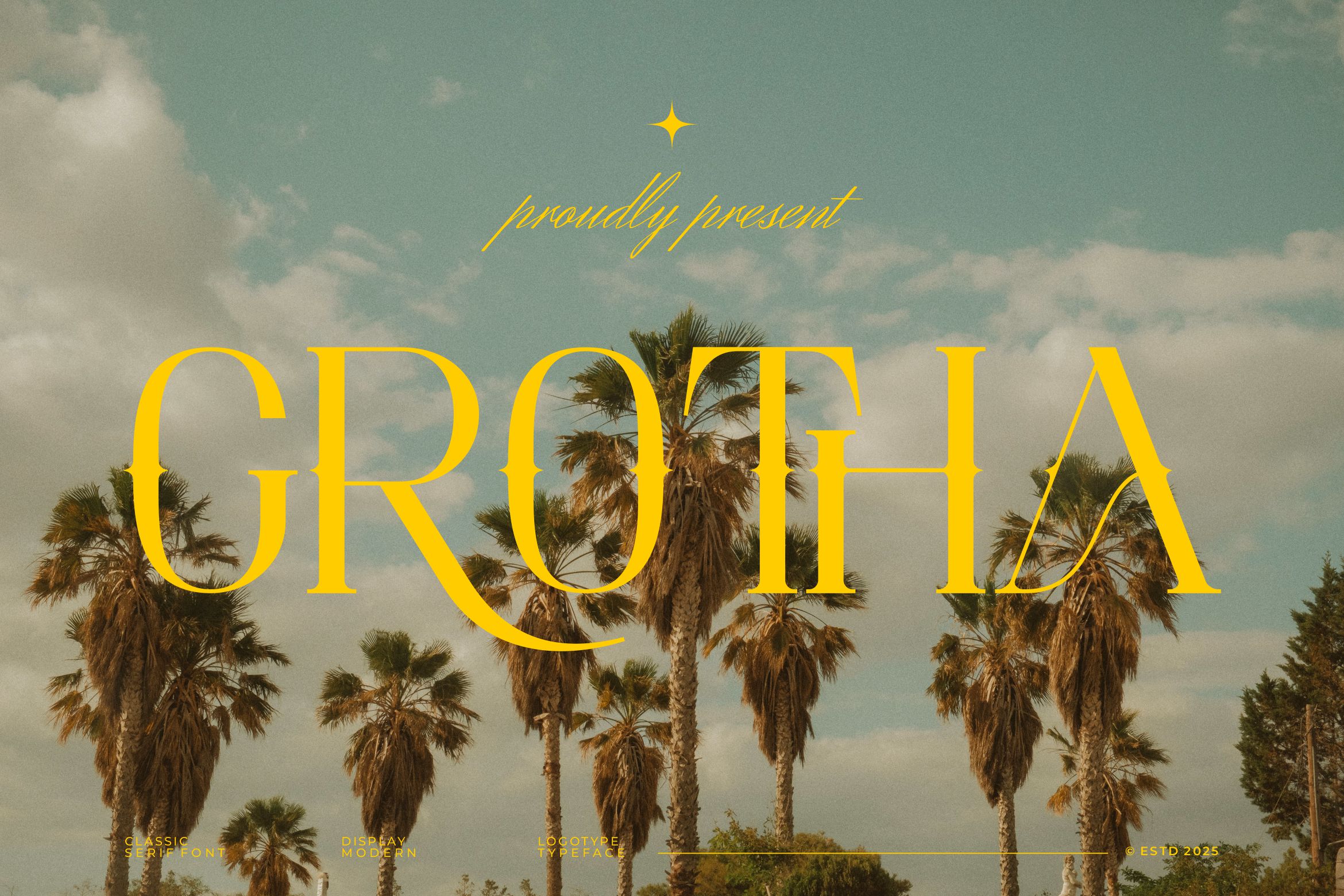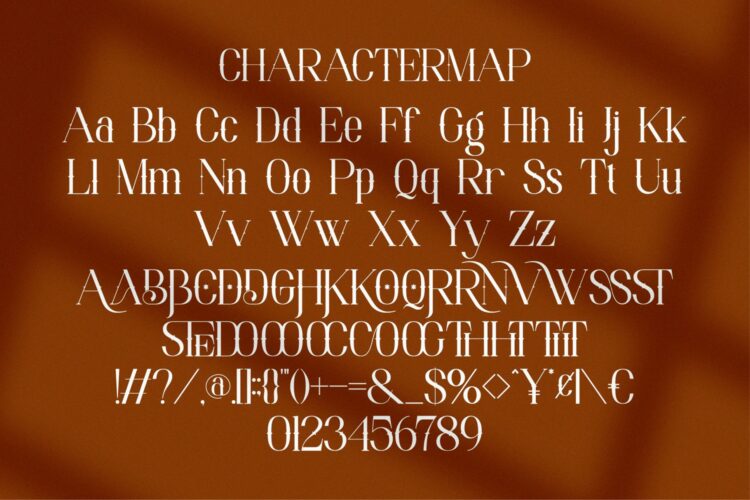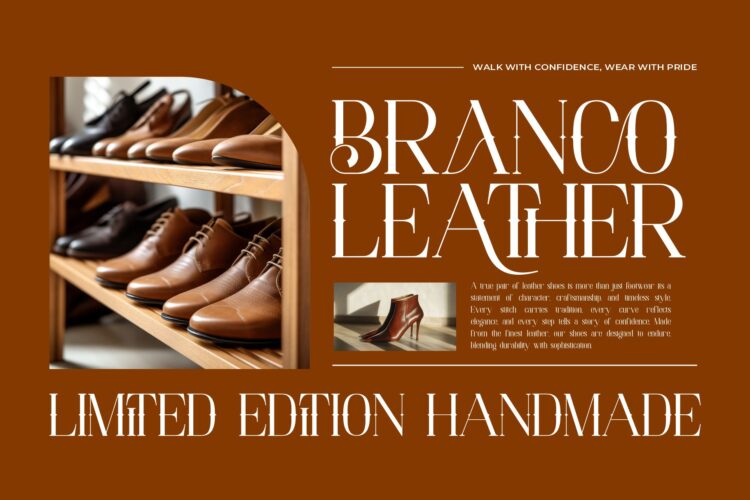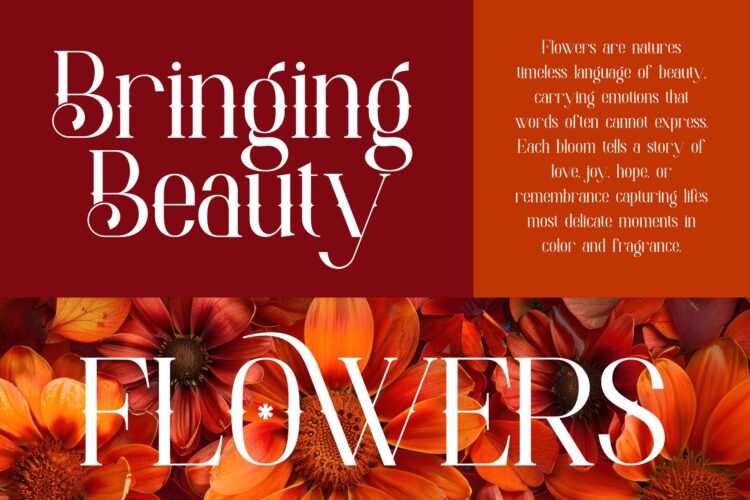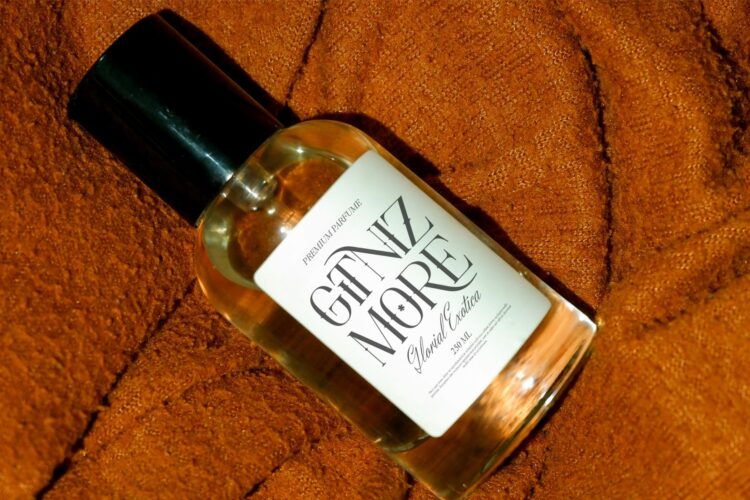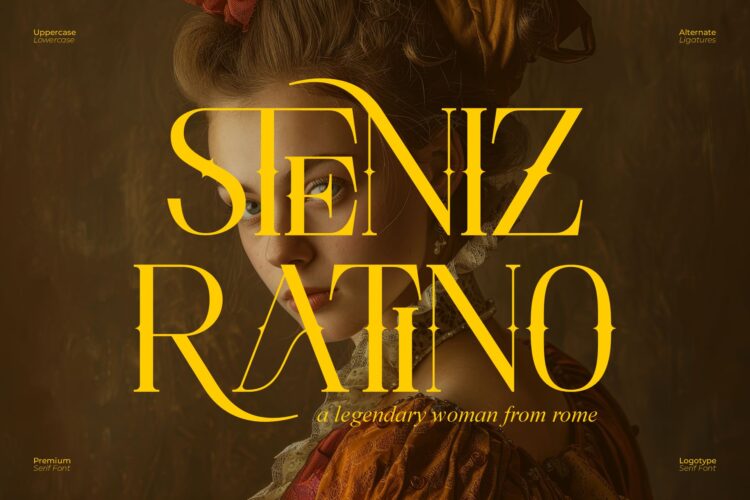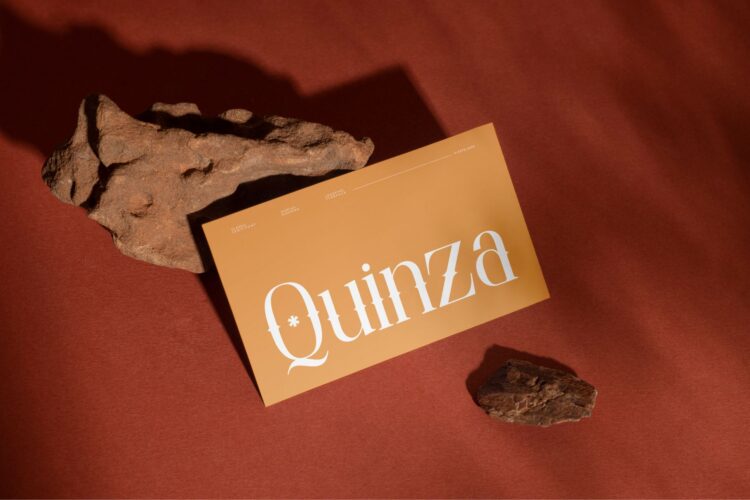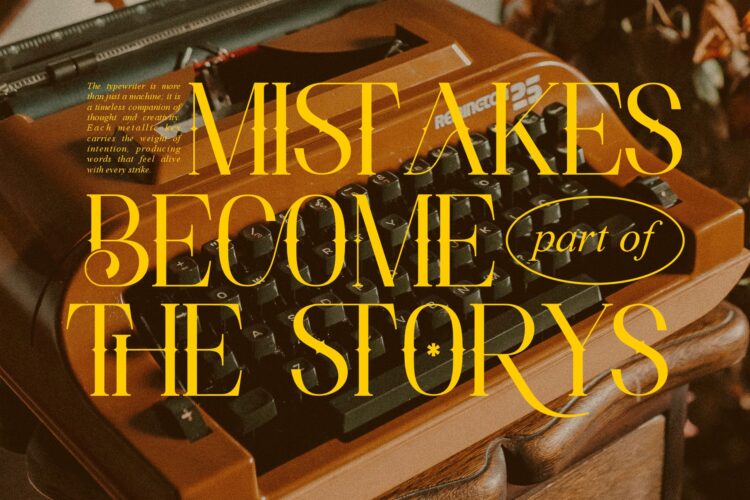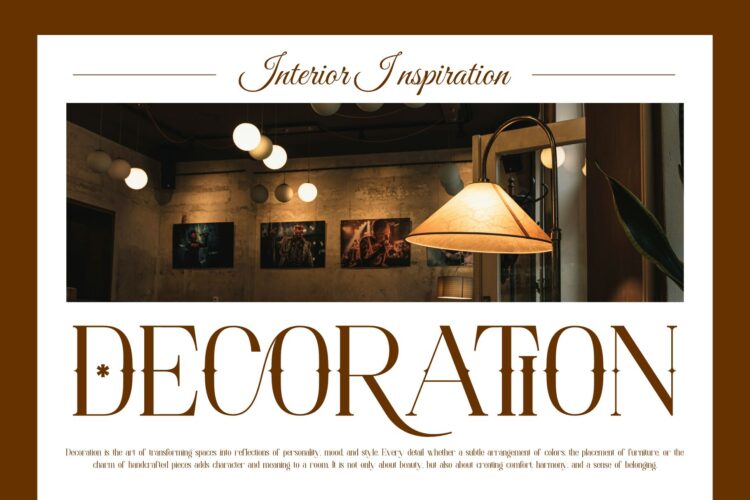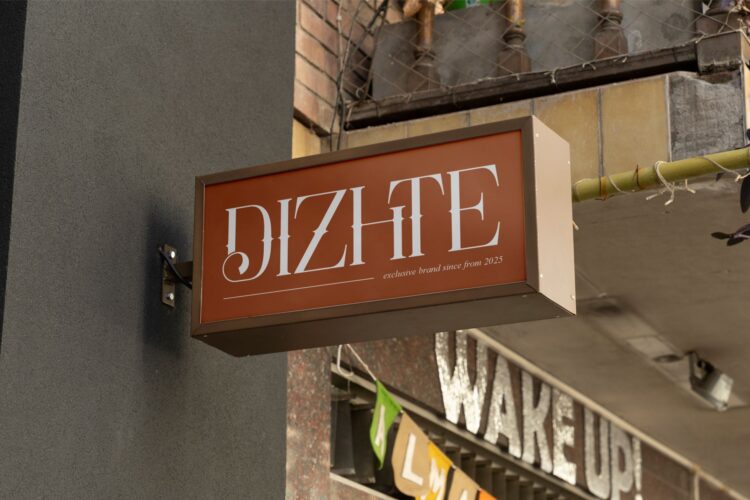
Grotha
Grotha Serif is a modern and classy font type for all branding and logo designs. This modern and classy Serif font has a beautiful character. This font is suitable for invitation card designs, cool logos, movie titles, movie names, business cards, book titles, brand names, and various other designs. Grotha Serif is a smooth serif font that exudes sophistication and the moment. Its stylish ligatures make this font a perfect partner for any project.
Grotha || Modern Vintage Serif Font